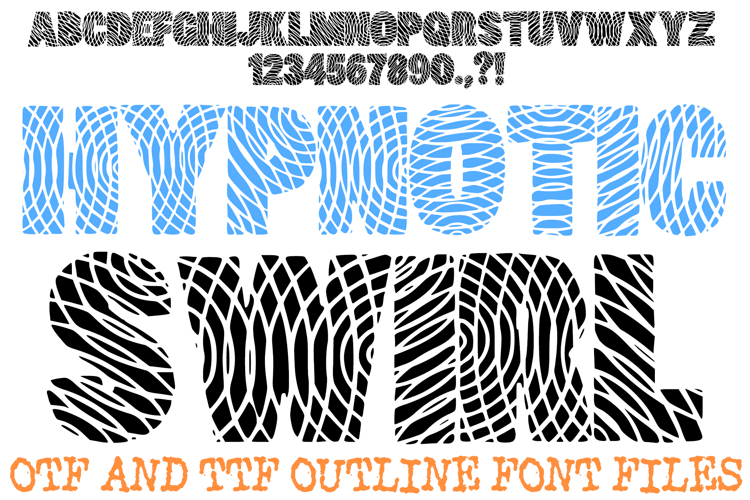
Capture attention with the dizzying, high-contrast energy of the Hypnotic Swirl Font! This hand-drawn display alphabet features heavy, bold silhouettes filled with a dense and vibrating pattern of overlapping concentric circles. It is an exceptional choice for psychedelic posters, mystery-themed branding, intricate streetwear designs, and eye-catching social media headlines.
The complex "maze" of intersecting lines creates an intense visual texture that mimics both human fingerprints and topographic map layers. Whether you are designing a cover for a suspense thriller or a unique brand identity that celebrates individuality, the Hypnotic Swirl Font delivers a powerful, multi-layered aesthetic that is impossible to ignore.
Vibrant Concentric Texture: Each character is packed with a dense pattern of overlapping swirls for a high-impact, "shimmering" effect.
Heavy Block Silhouettes: The thick, sturdy letterforms provide a strong anchor for the intricate internal details.
Versatile Abstract Appeal: The pattern works equally well for forensic themes, organic wood-grain textures, or retro psychedelic art.